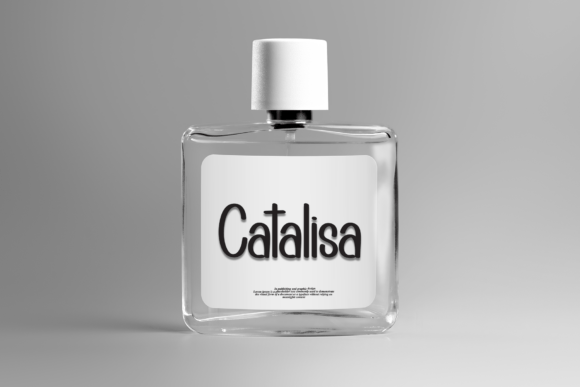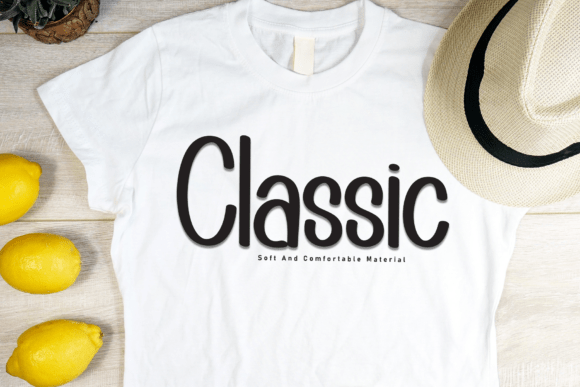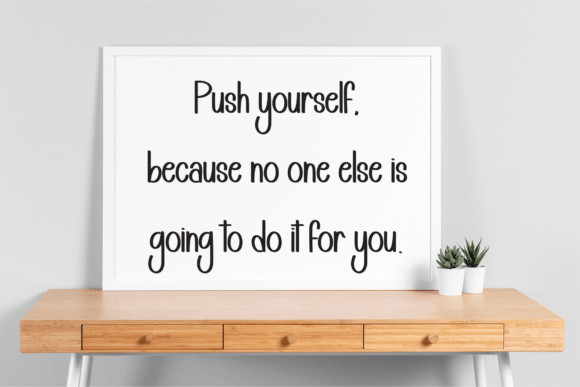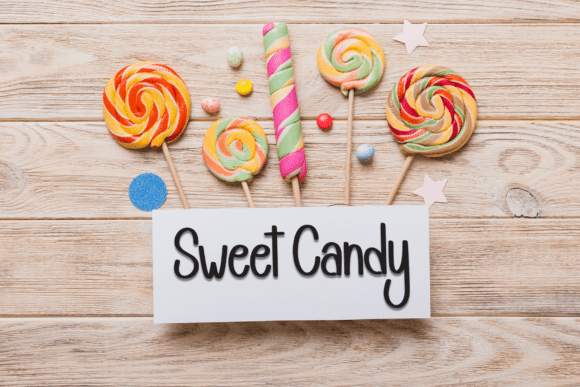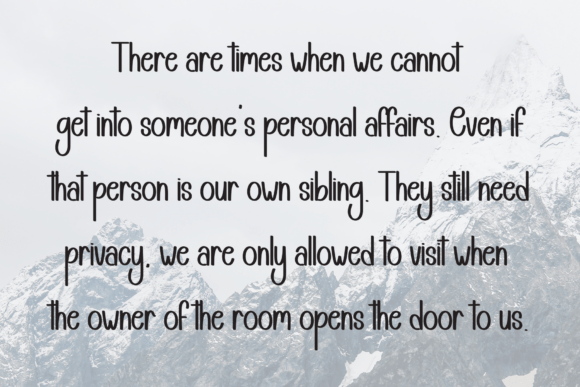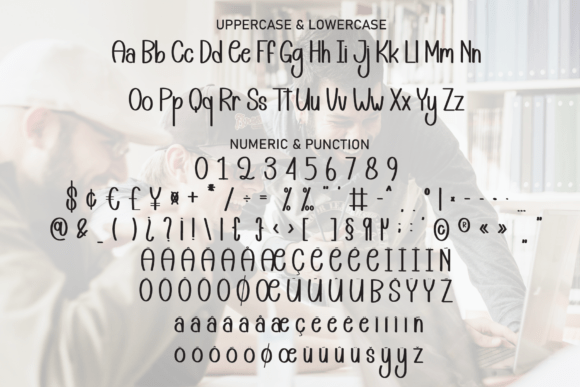
Introduction to Hello College Font
Do you remember that moment when you’re brainstorming ideas for a new project, and suddenly, the perfect font pops into your mind? It’s like the missing piece of the puzzle has been found. For many designers, this moment is a game-changer. And for those who are about to discover the Hello College Font, it’s a match made in heaven.
With its clean lines, relaxed structure, and approachable design, the Hello College Font is a valuable addition to any designer’s toolkit. Whether you’re working on a packaging project, creating social media graphics, or designing posters, this font is sure to add a touch of freshness and friendliness to your creative endeavors. In this article, we’ll delve into the world of the Hello College Font and explore its features, uses, and benefits.
Key Features of Hello College Font
- High-quality design resource suitable for creative projects, including academic and educational materials.
- Unique characteristics include a modern, clean design and a wide range of customizable options.
- Perfect for use in academic and creative projects, including presentations, posters, and flyers.
Honest Review: Hello College Font
The Hello College Font is a clean and modern sans-serif font that works well for a variety of applications, from brochures to websites. ✨ Its versatility and simplicity make it an excellent choice for designers who want to create a professional and sleek design without breaking the bank.
Some of the notable features of the Hello College Font include:
- A wide range of font sizes and styles to suit your creative needs
However, I do have to mention a few limitations: ⚠️ The font may not be suitable for projects that require a lot of bold or italic text, as it can become a bit hard to read. Additionally, the font may not be compatible with all design software or systems.
Overall, I’m impressed with the Hello College Font, and I would definitely recommend it to designers looking for a high-quality, free design resource. With a little creativity and experimentation, this font can be a great addition to your design toolkit.
How to Use Hello College Font
Hello College Font is a high-quality design resource ideal for creative projects requiring a modern and professional look.
Tips for Getting the Most Out of Hello College Font
To get the most out of Hello College Font, use it in conjunction with a transparent background to create a seamless and modern design. You can also experiment with different font sizes and styles to achieve the desired look.
Hello College Font is commonly used in design projects requiring a high-quality, modern look, such as business cards, brochures, and presentations. Its transparent background makes it ideal for use in logo design and branding materials.